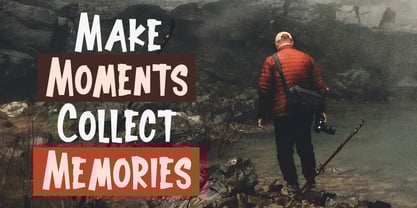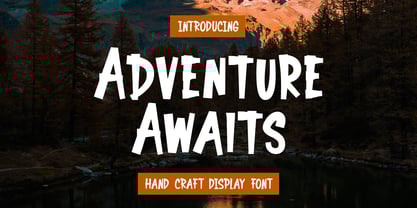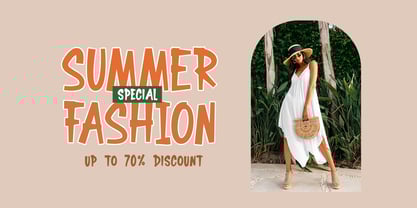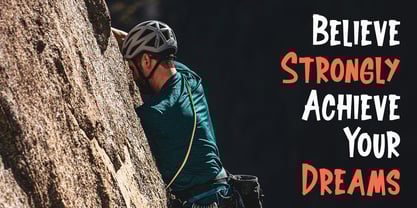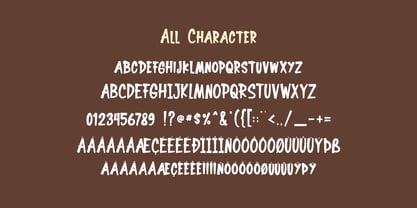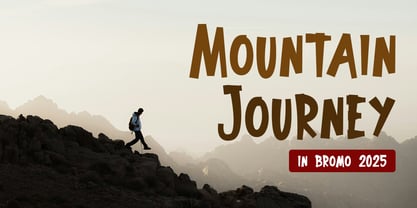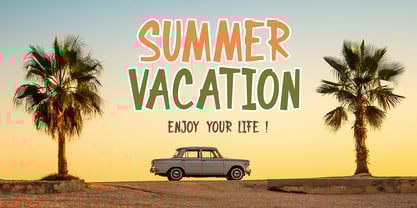
Adventure Awaits
by Bluestype Studio
The Adventure Awaits Font Family was designed by Jefri Dwi Alfatah and published by Bluestype Studio. Adventure Awaits contains 1 styles. More about this family
Adventure Awaits is a handcrafted display font that brings energy, creativity, and a spirit of exploration to your design. With its bold and lively strokes, this font is perfect for projects that aim to inspire, motivate, and stand out. Whether used for posters, branding, or creative quotes, Adventure Awaits adds a touch of enthusiasm and originality, making every word feel like the beginning of an exciting journey.